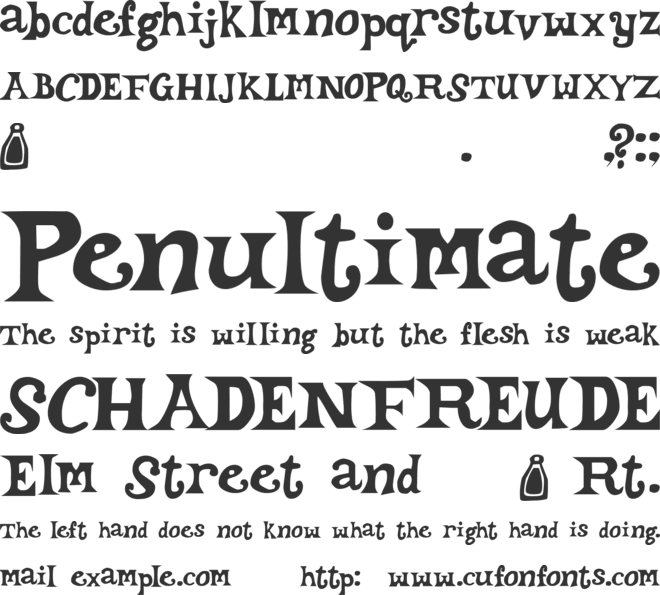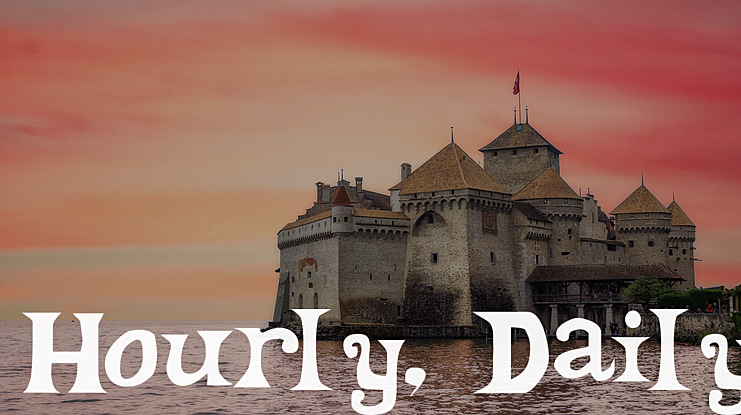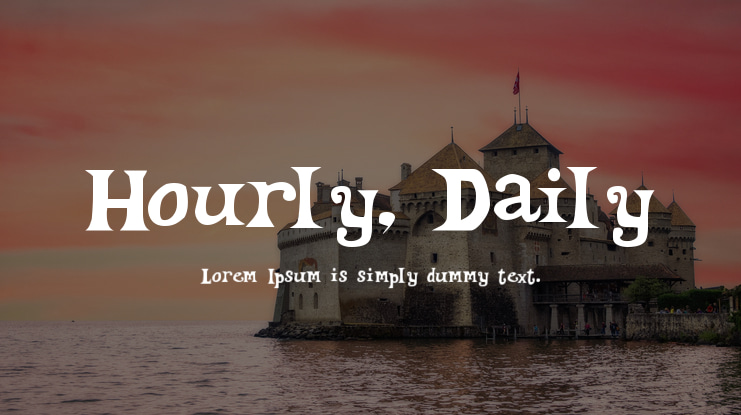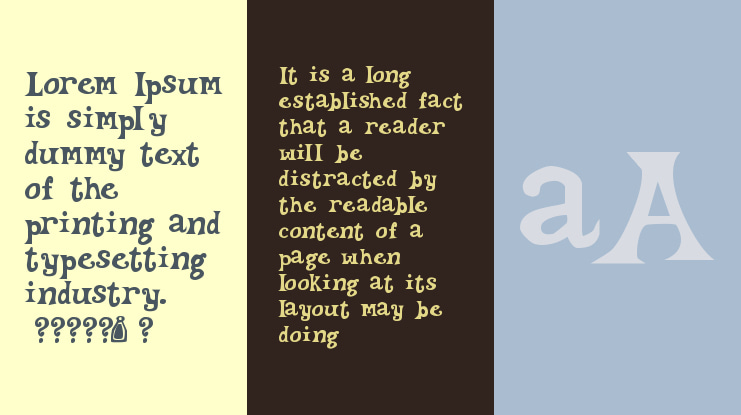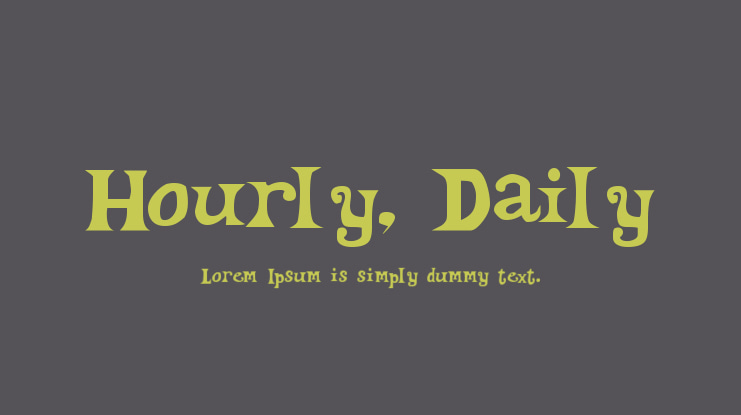
Hourly, Daily Font
Hourly, Daily is an album by the splendiferous You Am I. My friend Danny asked me to make a font of the lettering on the cover. So here it is. Original artwork by Simon Alderson. I think. Little bit of work to do yet, but it's getting there.